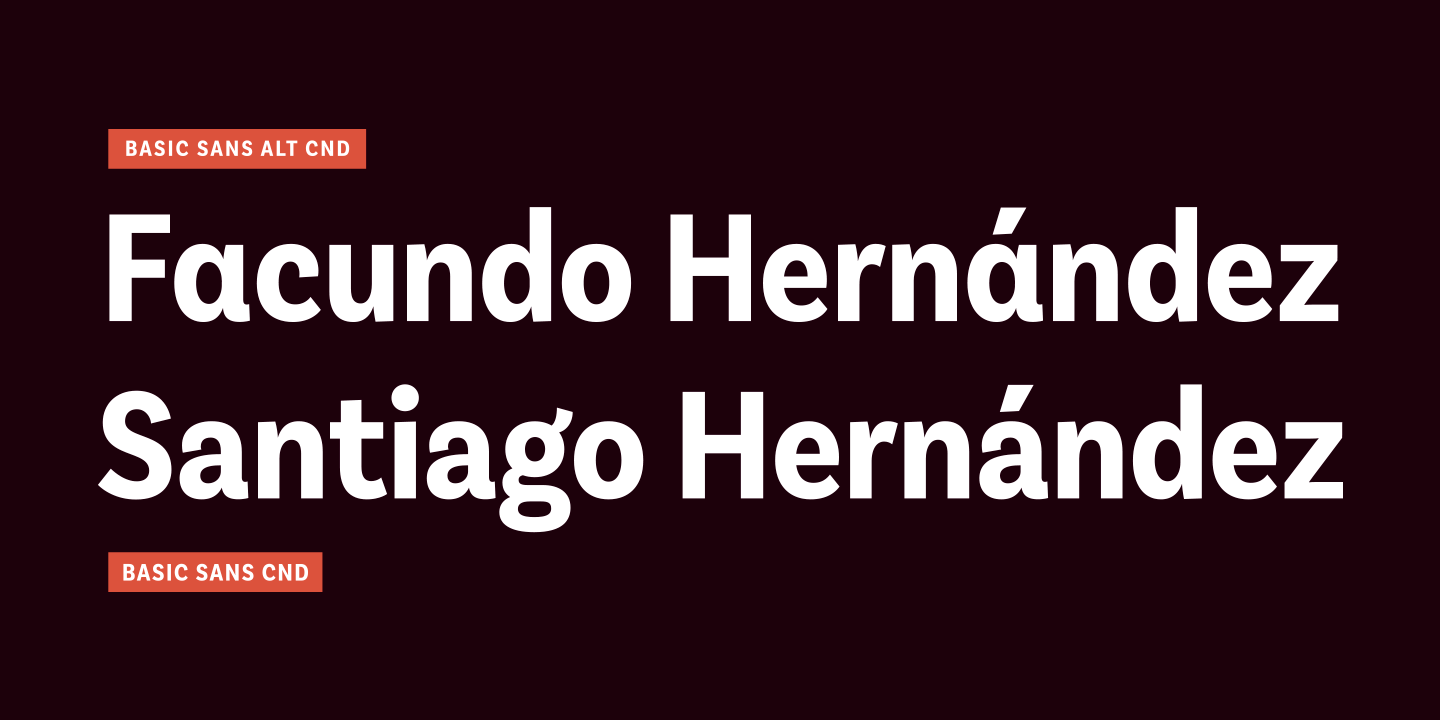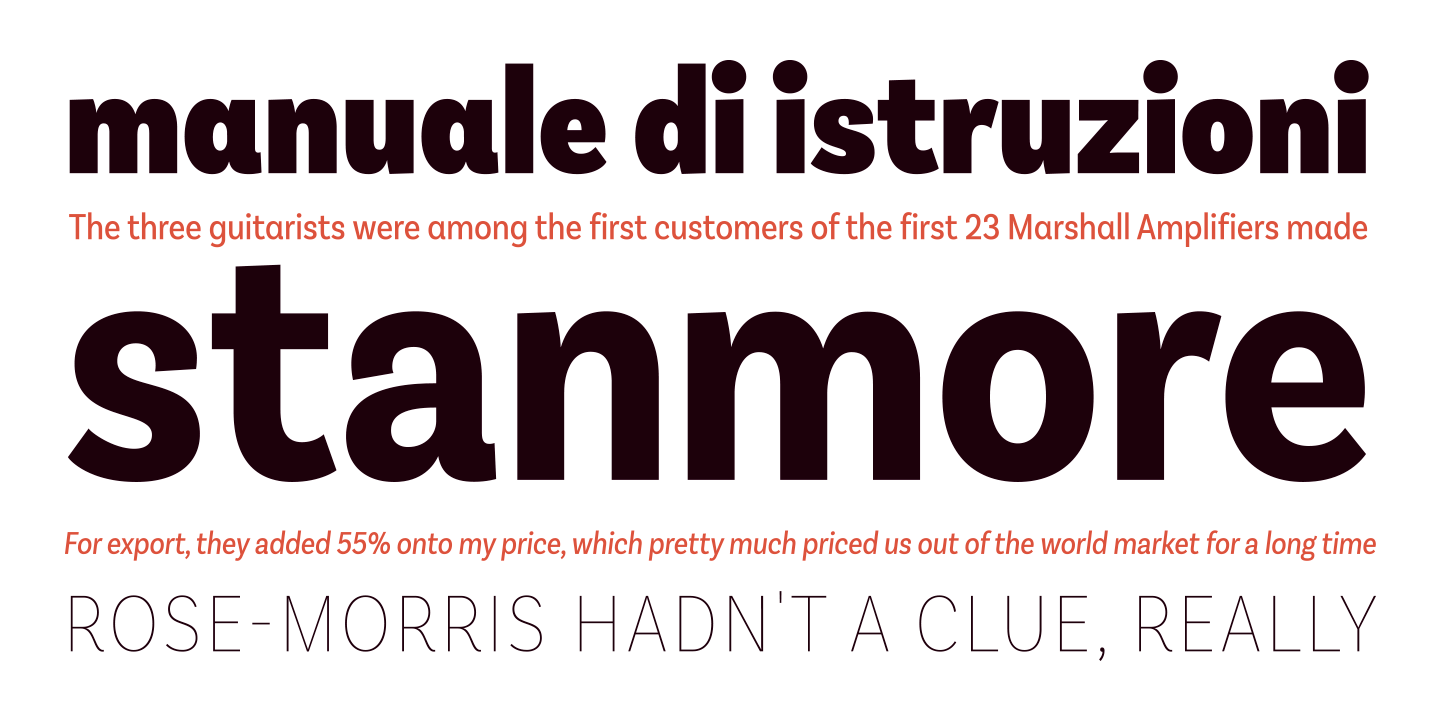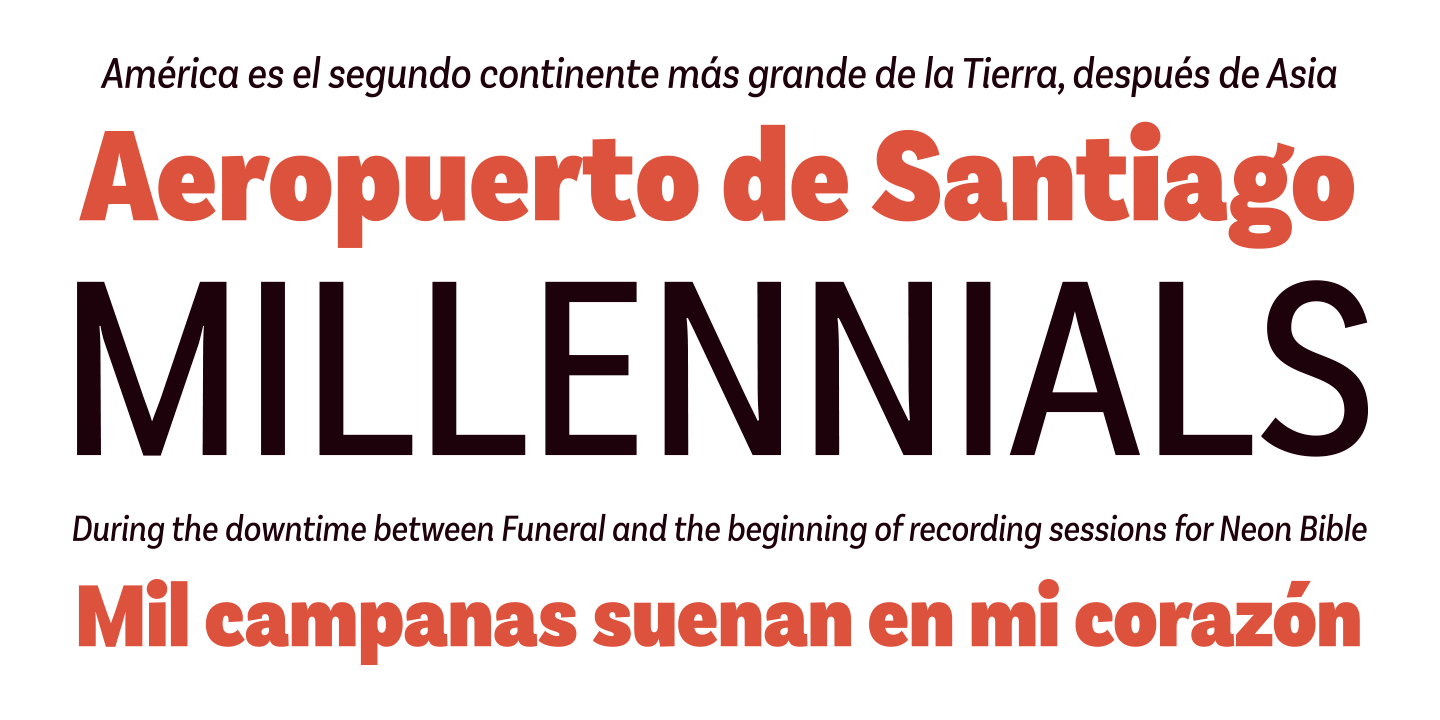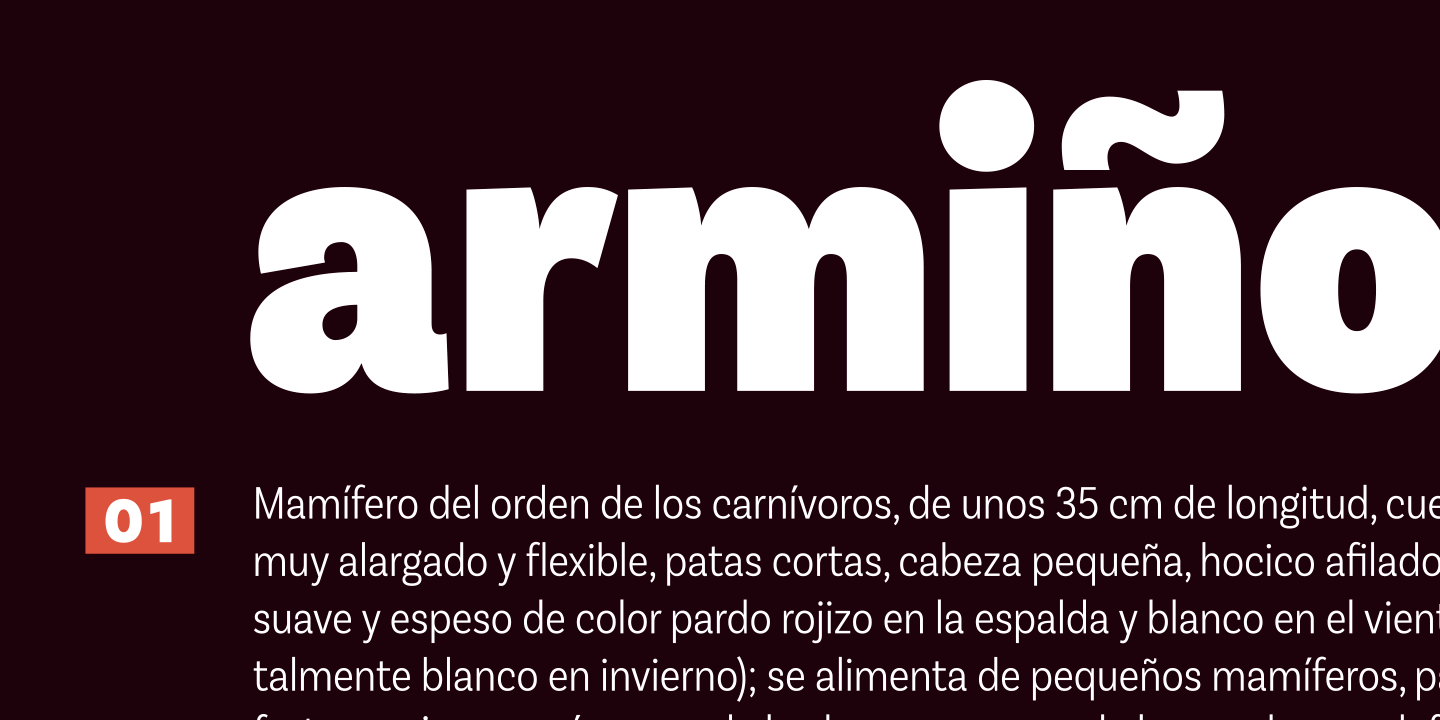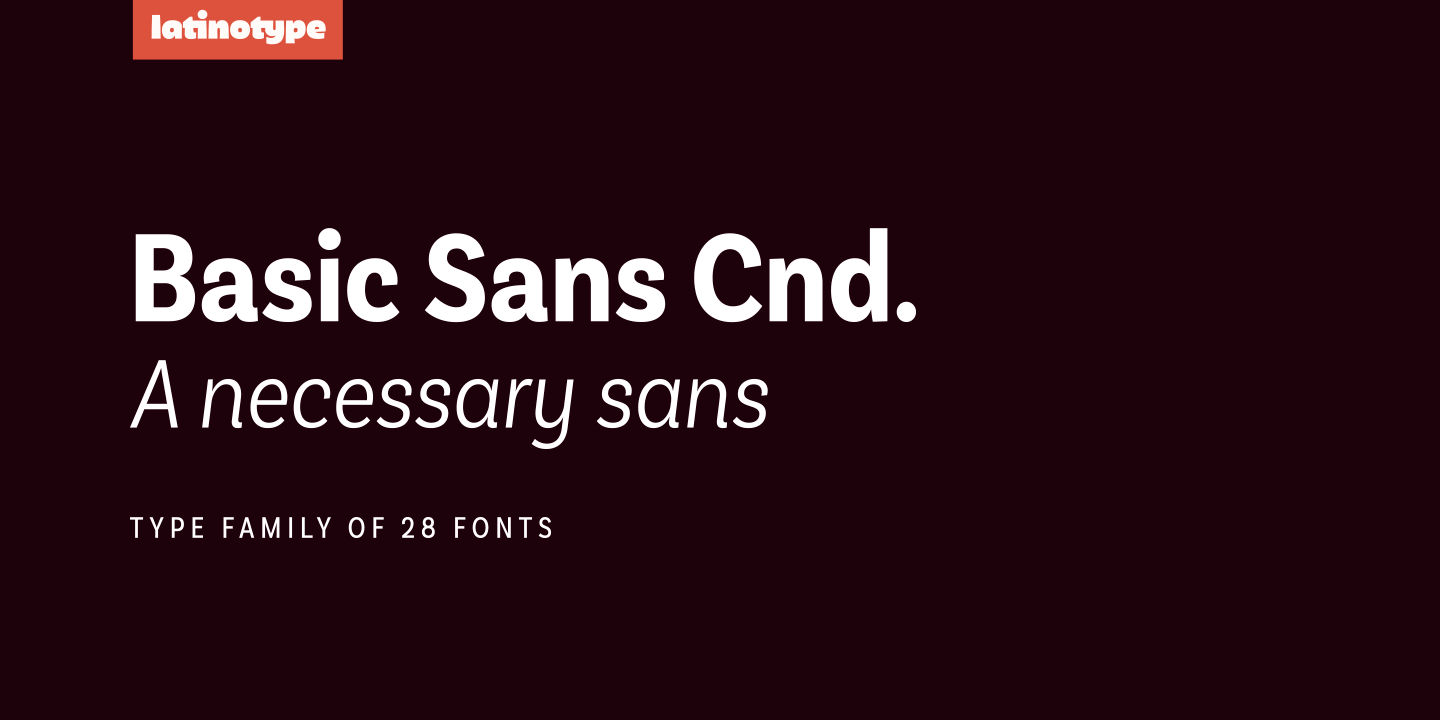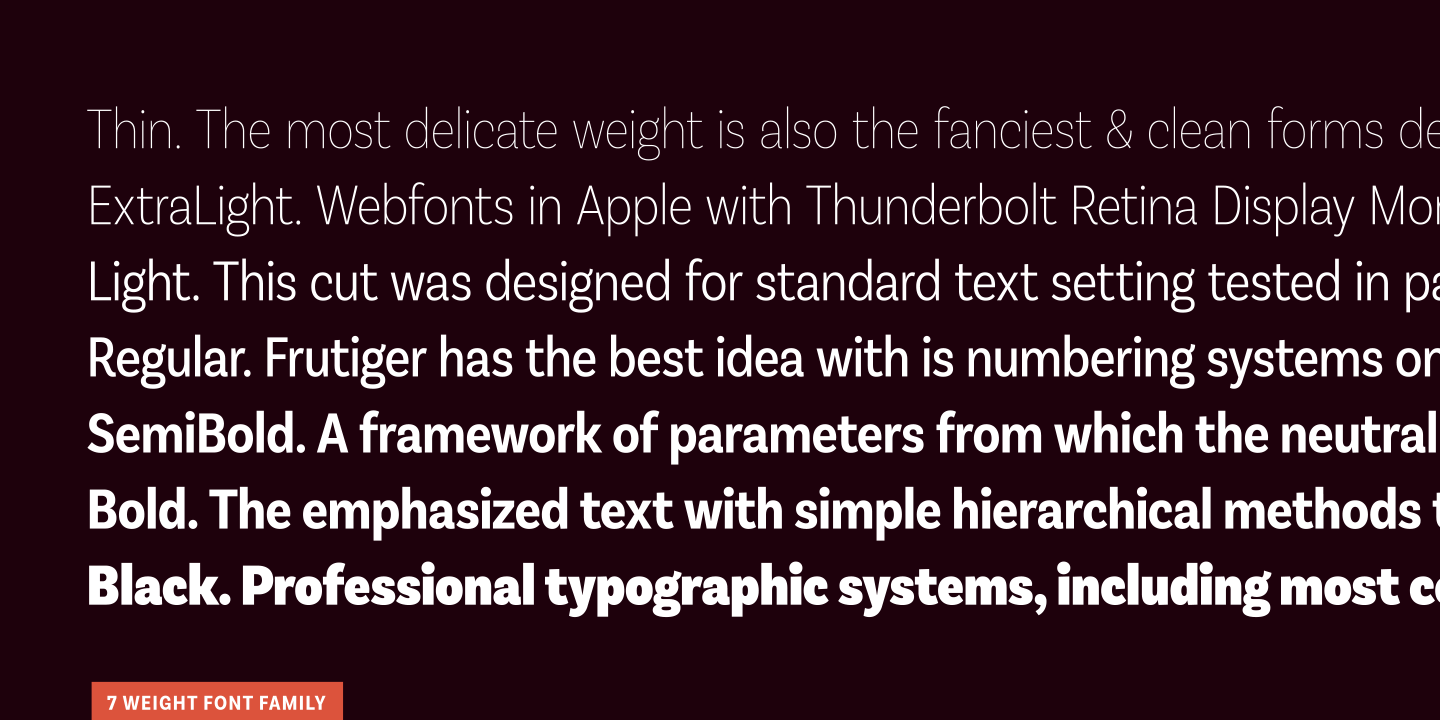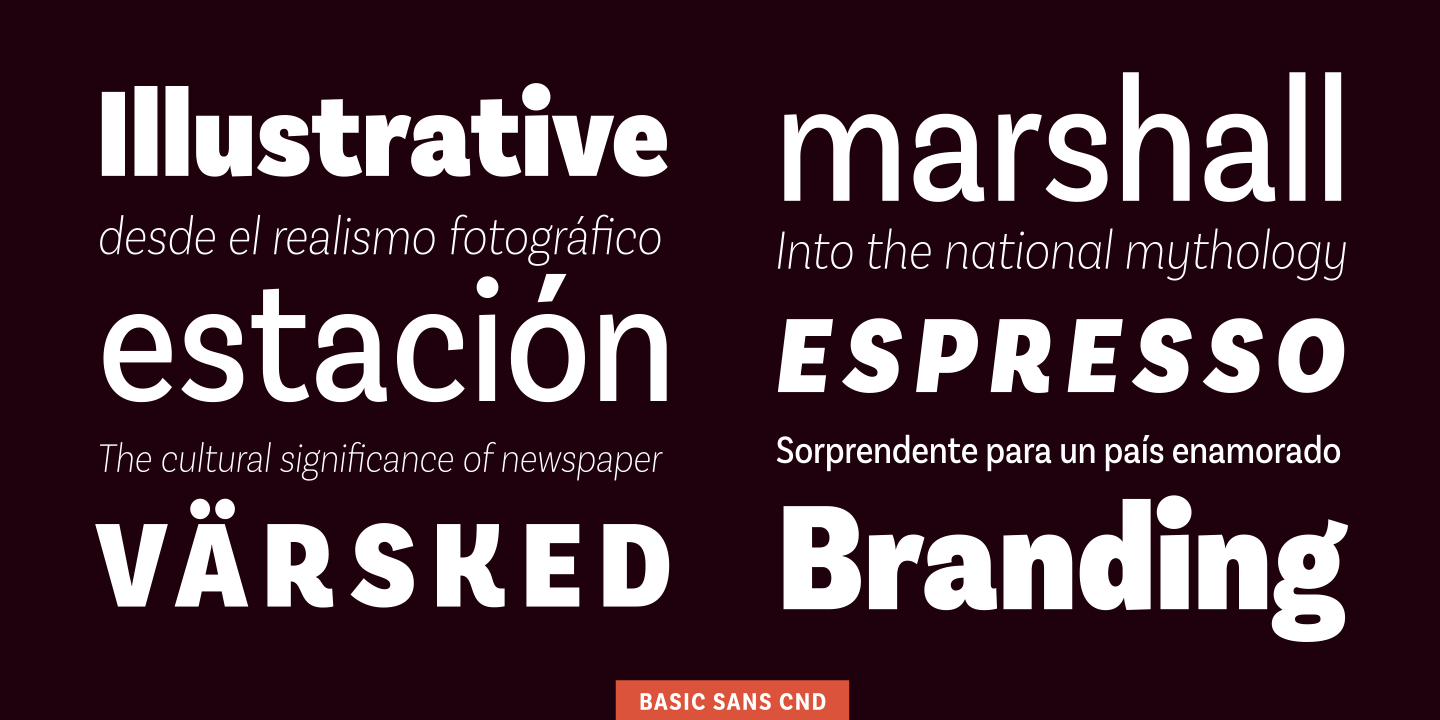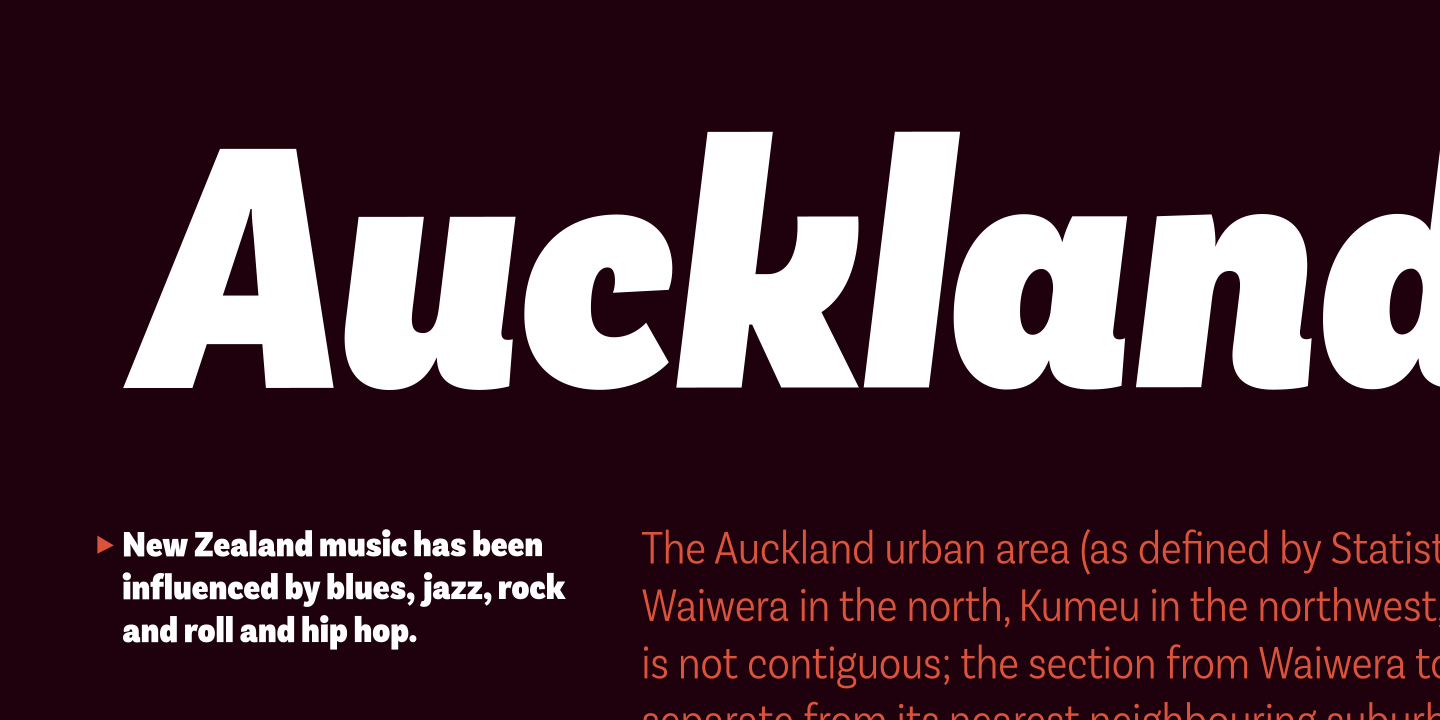
Basic Sans Cnd is a narrower version of Basic Sans. It is a family of Grotesque features with a functional, neutral and seeming clean style that looks to keep a neutral (or basic) appearance on paper, but including lots of details that give it a unique personality.
Basic Sans Cnd is a sans-serif typeface well-suited for publishing projects, medium-sized text, branding, posters, headlines and more!
This font family comes in 7 weights—ranging from Thin to Black—plus matching italics and it has a set of 416 characters that support 206 different languages.